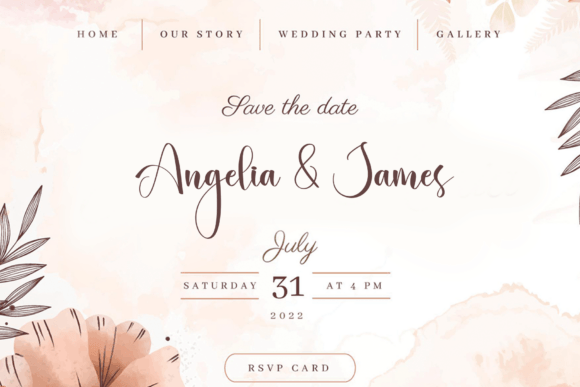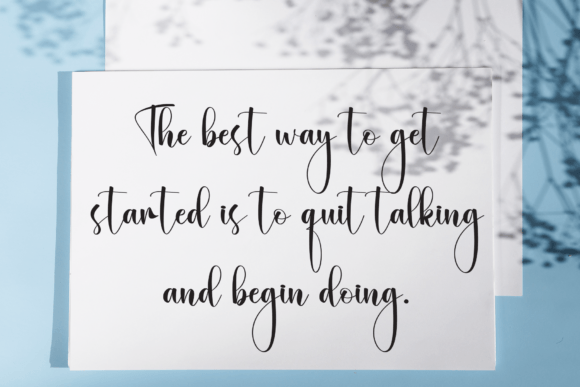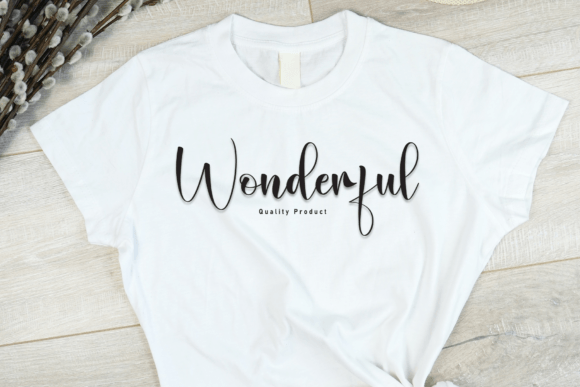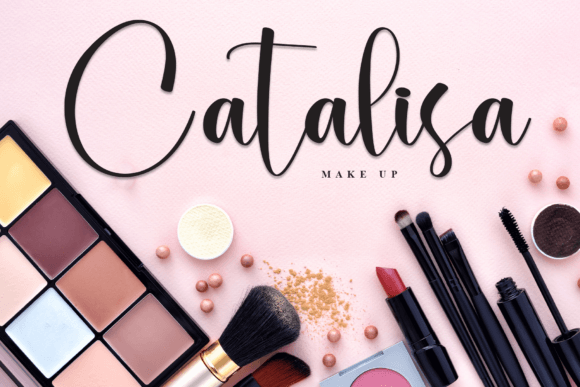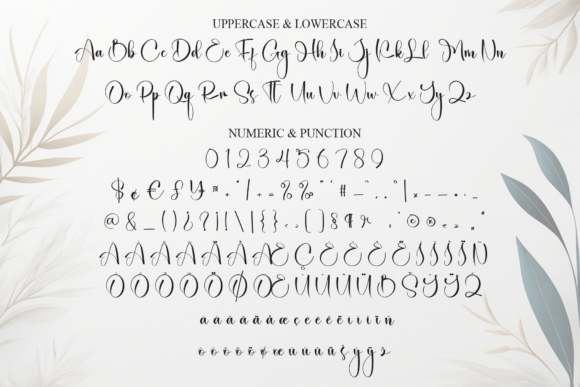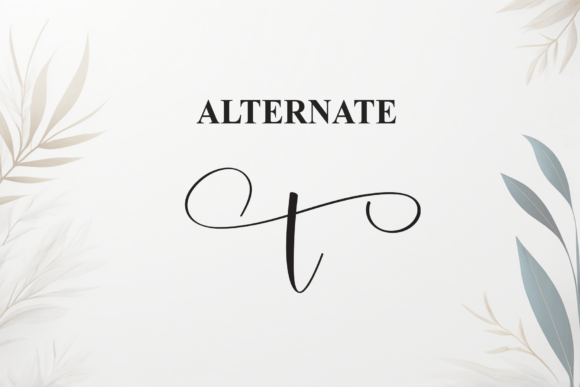
Cozy Up Your Designs with the Perfect Holiday Font
As the holiday season approaches, many of us find ourselves scrambling to create the perfect decorations, cards, and gifts for loved ones. For designers, this can be a fun yet overwhelming task, but with the right tools, the process can be a breeze. For me, it all starts with a warm cup of coffee and a blank canvas – a moment of creative clarity that sets the tone for the rest of the project.
This is where the Christian Font comes in, a charming handwritten font that exudes coziness and festivity. With its playful, smooth letters, it’s the perfect choice for holiday projects, adding a touch of joy to any design. Whether you’re creating a festive card or a seasonal decoration, Christian Font is sure to make your design stand out.
For designers, Christian Font is a valuable asset, offering a unique and festive style that’s sure to elevate any project. Its versatility and charm make it a go-to choice for holiday designs, and with its ease of use, you’ll be able to create beautiful projects in no time.
Christian Font Key Features
- Font Family: Christian Font is a unique and elegant font family, with 6 different font styles: Christian, Christian Italic, Christian Bold, Christian Bold Italic, Christian Light, and Christian Light Italic.
- Unique Characteristics: Christian Font features a beautiful, handwritten style with subtle flourishes and ornaments, making it perfect for creative and artistic applications.
Christian Font Review
When I first laid eyes on Christian Font, I was immediately drawn to its elegant and refined aesthetic. ✨ The font’s subtle curves and smooth lines give it a sophisticated feel that’s perfect for high-end branding or luxury designs. I appreciate how the font’s minimal ornamentation allows the user’s content to take center stage.
One of the standout features of Christian Font is its versatility. ✨ It works beautifully for both serif and sans-serif designs, making it a great choice for a wide range of projects. Additionally, the font’s legibility is excellent, ensuring that the text remains clear and easy to read at various sizes.
- ⚠️ Christian Font may not be the best choice for bold or playful designs, as its refined aesthetic can come across as too formal or conservative.
- ⚠️ The font’s limited font weights and styles may make it less suitable for complex designs that require a wide range of typographic options.
Overall, I think Christian Font is a solid choice for designers who want a high-quality, elegant font for their projects. While it may have some limitations, its versatility and refined aesthetic make it a great addition to any designer’s toolkit.
Getting the Most Out of Christian Font
To get the most out of Christian Font, use it in conjunction with other fonts that complement its style. Experiment with different font sizes and colors to create a visually appealing design. You can also use Christian Font to add a touch of elegance and sophistication to your designs.
Christian Font is commonly used in:
- Church bulletins and newsletters
- Christian-themed posters and flyers
- Wedding programs and place cards